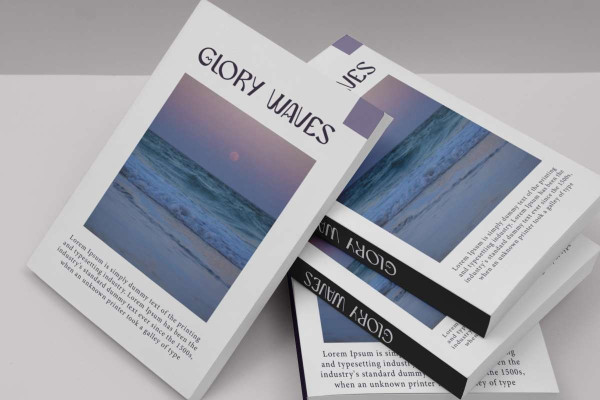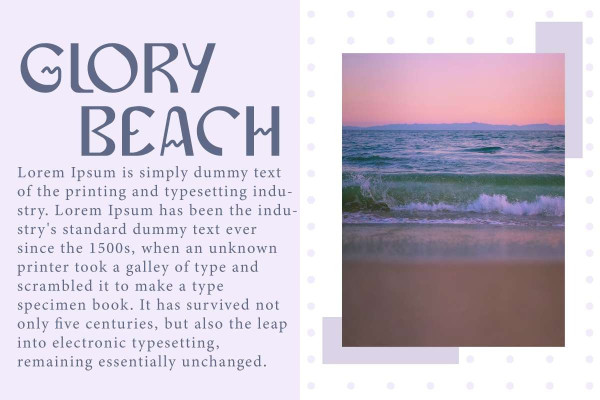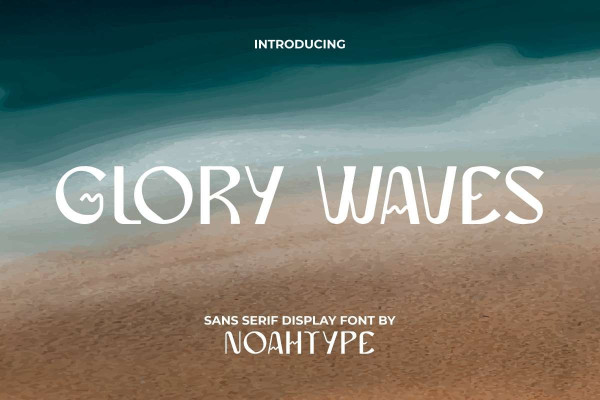
Glory Waves Font
Glory Waves Font is a creative sans serif display font designed by NoahType. This font has a unique wavy line on some of the letters that will make your designs looks interesting! It would be perfect choice for many industries, such as accessories, advertisement, café, fashion, furniture, handicrafts, printing, publishing, resort and hotel, restaurant, and more!
Glory Waves Font includes full set of ALL CAPS for both Uppercase and Lowercase Basic Characters, Numerals and Punctuation. This font would be perfect for designs that need a calm and fresh look that can makes you in a good mood, such as business card, catalog, custom design, label, magazine, poster, product packaging, screen printing, signage, stationery, sticker, title, website, etc.